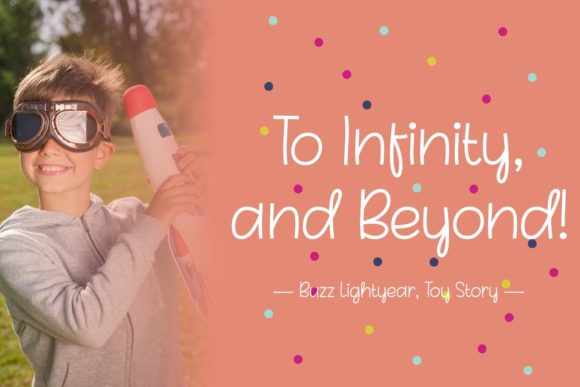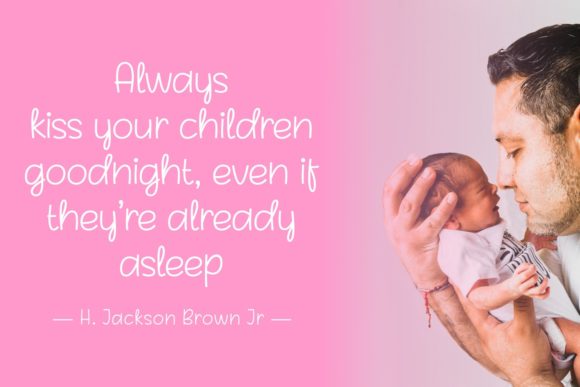
Children Time Font
db-ku.com - Script & Handwritten -- Children Time is a delicate and fun handwritten font. With its cute swirls it resembles an adorable handwritten style, and this font is perfect for adding a playful element to your next design project!